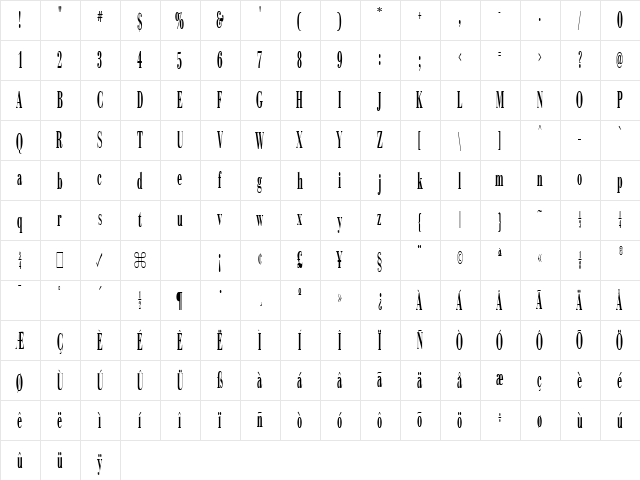
Campagna Regular
Design Context for Campagna Typeface
Campagna offers clean, dependable letterforms without strong stylistic allegiance, making it a practical choice for designers who need flexibility.